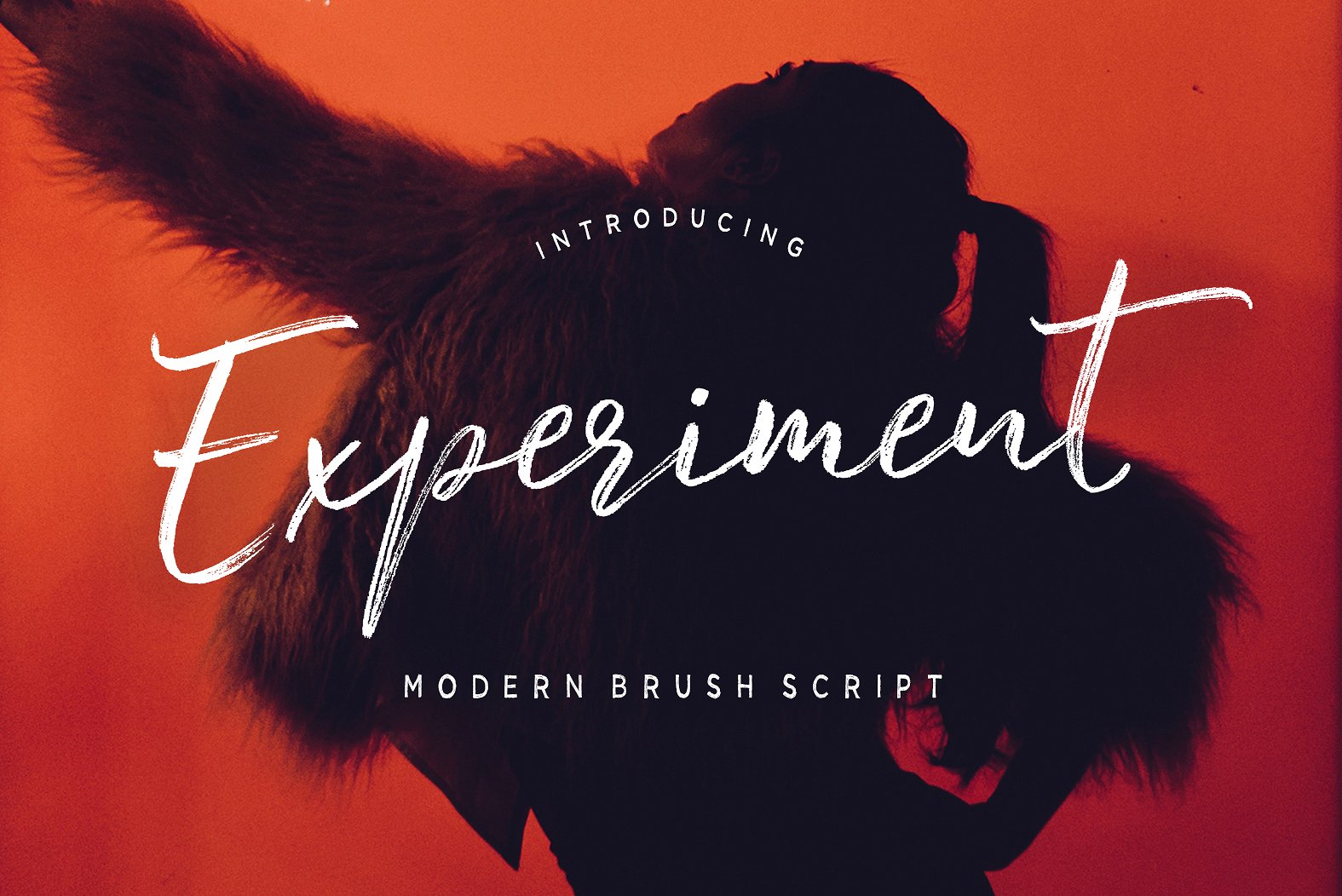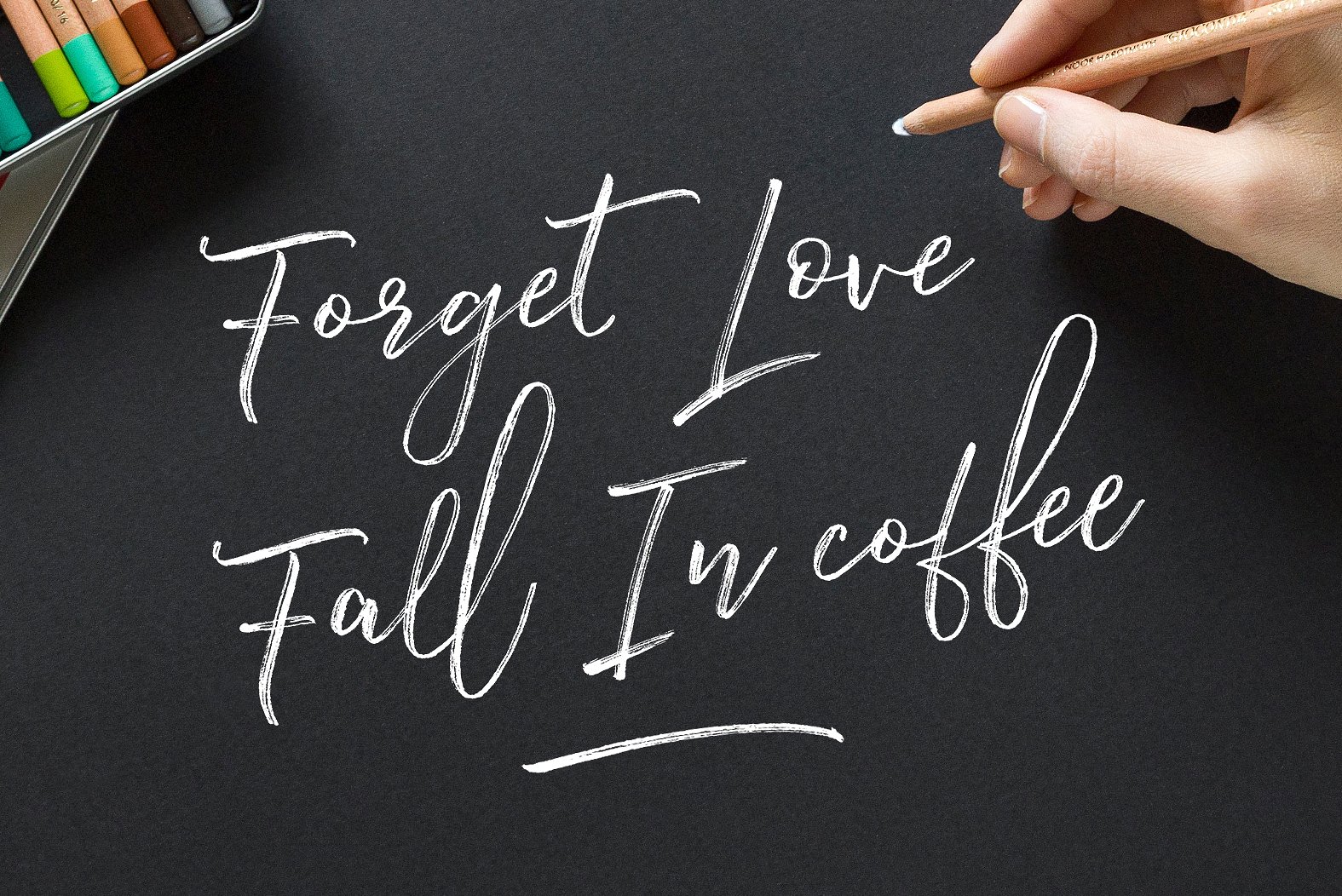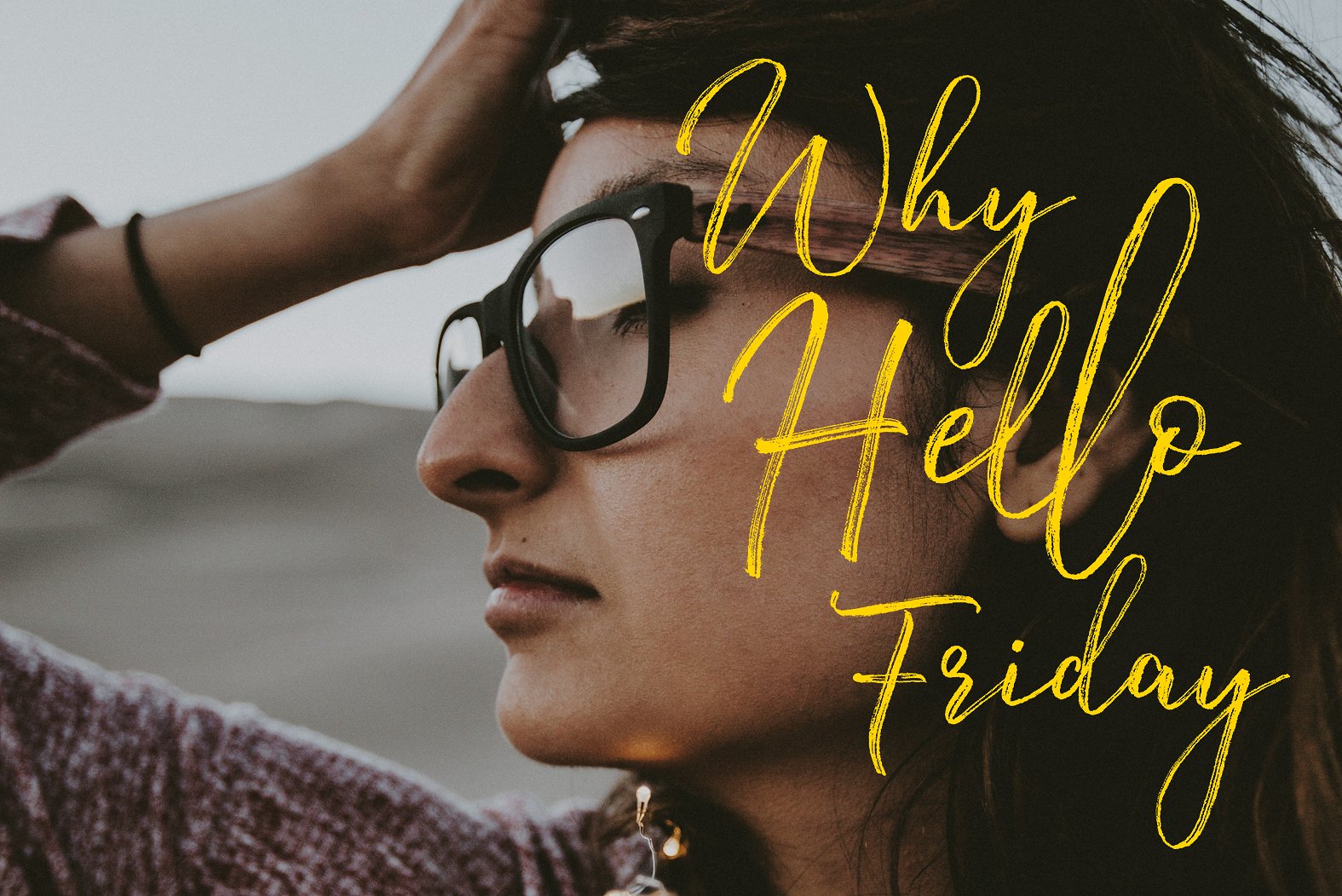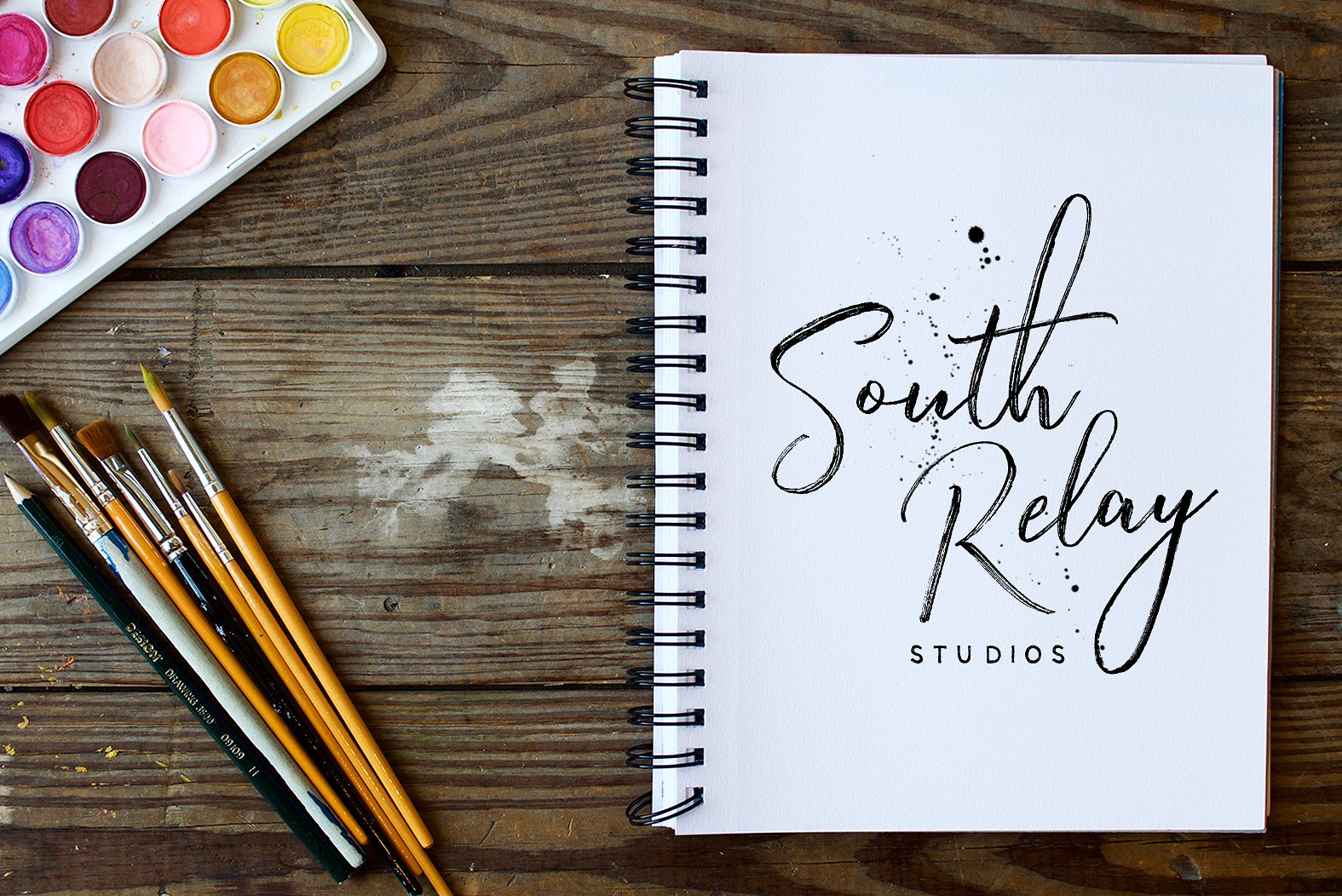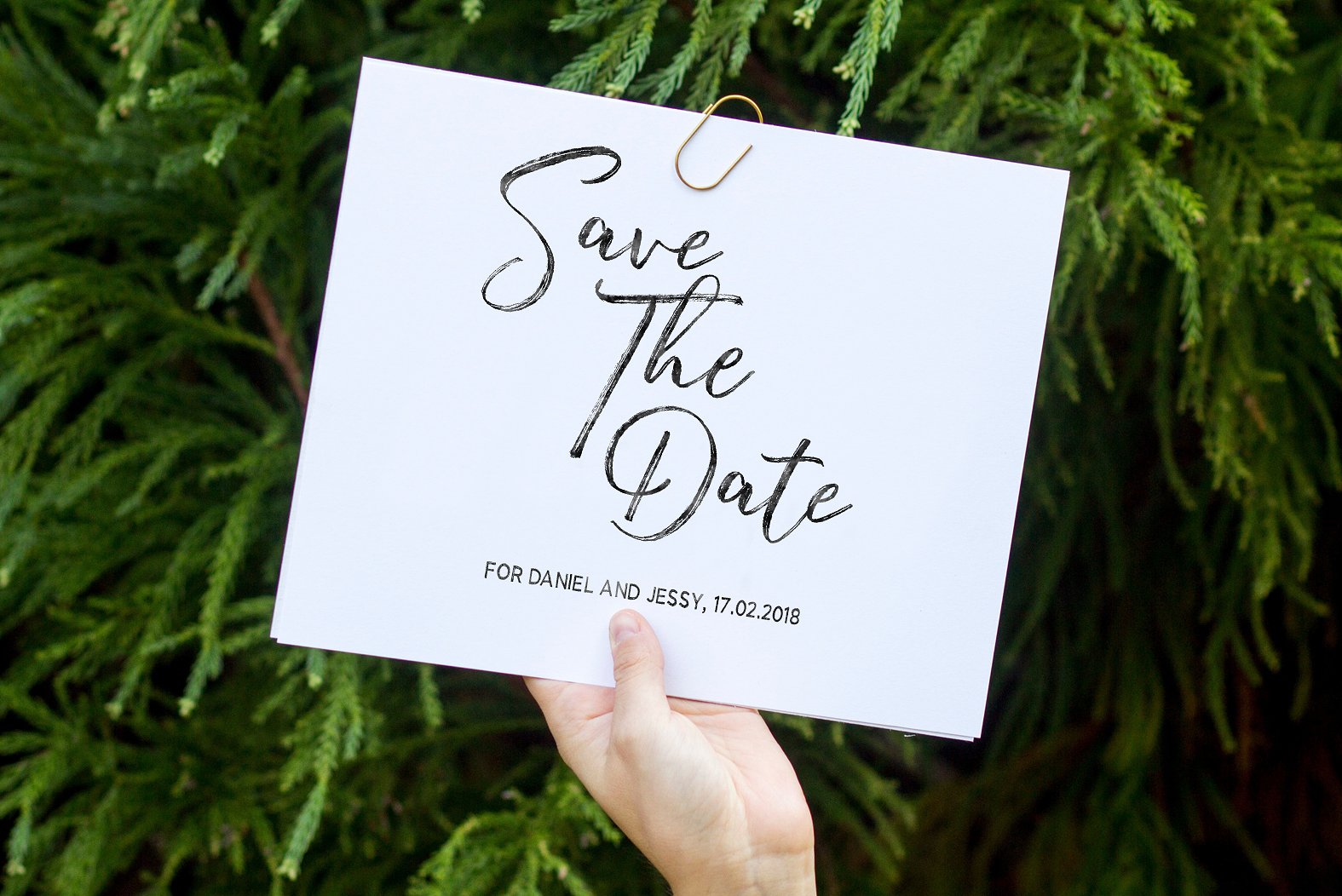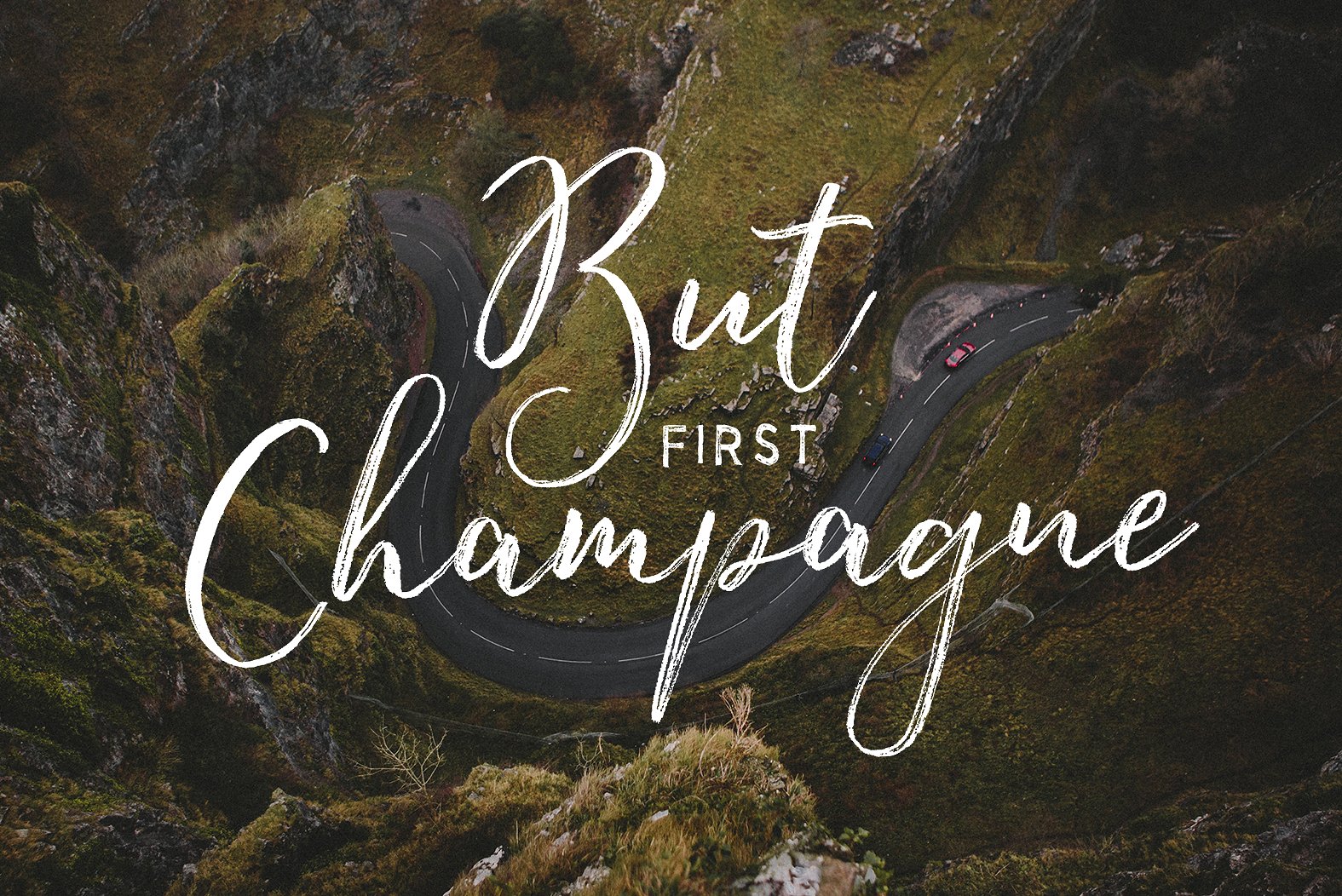
Experiment Brush Font
About Experiment Brush Font
Experiment is an extremely casual yet self-assured script font. This is a great font to communicate confidence, yet adds just the right amount of sweetness through it’s brush stroked design and natural flow.